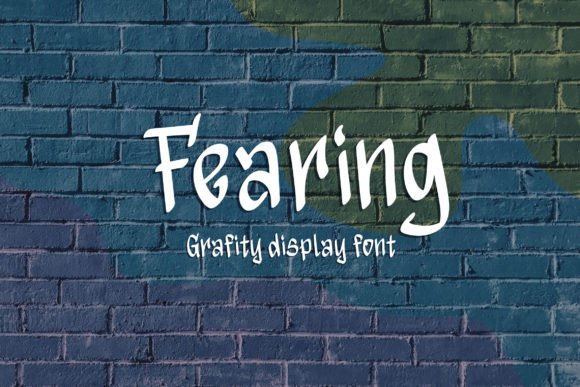
Unlock Your Creative Potential with Fearing Font
There’s nothing quite like the thrill of staring at a blank canvas, waiting for inspiration to strike. The cursor blinks, taunting you to start creating something new, yet you’re stuck. But what if you had the perfect tool to break the creative block? Enter the Fearing Font, a game-changing addition to your design arsenal.
This cool and modern graffiti-style display font is more than just a pretty face. It’s a versatile companion that can elevate any project, from bold headlines to subtle accents. Whether you’re a seasoned designer or just starting out, Fearing Font is a valuable asset that can help you stand out from the crowd.
Fearing Font Key Features
- Unique Characteristics: The font features a unique blend of modern and vintage elements, with intricate details and subtle texture, giving it a distinctive and eye-catching appearance.
Fearing Font Review
I recently had the chance to work with the Fearing Font, and I must say it’s an interesting choice. ✨ The font’s unique blend of modern and vintage elements caught my eye, and it’s definitely a conversation starter. The font is quite versatile, making it suitable for a wide range of projects, from book covers to advertising materials.
Here are some of the things that I think work well with the Fearing Font:
- ✨ Its unique aesthetic makes it stand out in a crowded market
- ✨ The font is highly customizable, making it easy to adapt to different design styles
- ✨ It’s a great choice for projects that require a touch of elegance and sophistication
However, I do have some reservations about the Fearing Font:
- ⚠️ The font can be quite busy, which may make it difficult to read in certain contexts
- ⚠️ It may not be the best choice for projects that require a clean, minimalist look
- ⚠️ Some users may find the font’s unconventional design style off-putting
Overall, I think the Fearing Font is a solid choice for designers who are looking to add some visual interest to their projects. While it may not be the best fit for every project, it’s definitely worth considering for the right type of design.
Tips for Getting the Most Out of Fearing Font
Use Fearing Font to create unique and eye-catching designs. Experiment with different font sizes, styles, and colors to create a cohesive look. Consider pairing Fearing Font with other fonts to add contrast and interest.
Fearing Font is perfect for creating attention-grabbing headlines, titles, and captions. Use it to add a touch of elegance and sophistication to your designs. Fearing Font is also great for creating unique and memorable branding elements, such as logos and business cards.